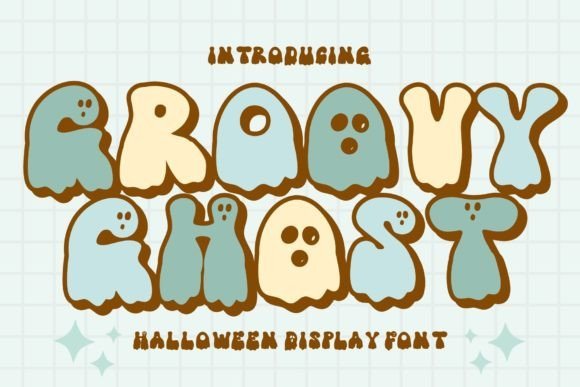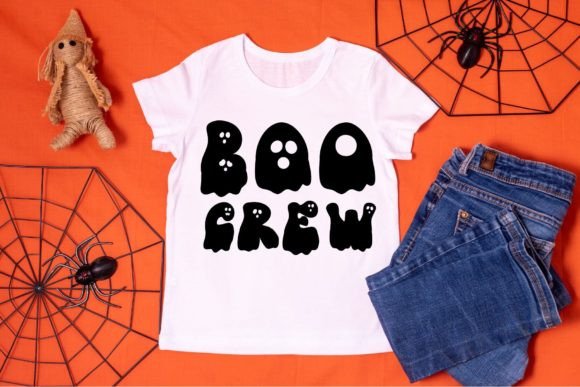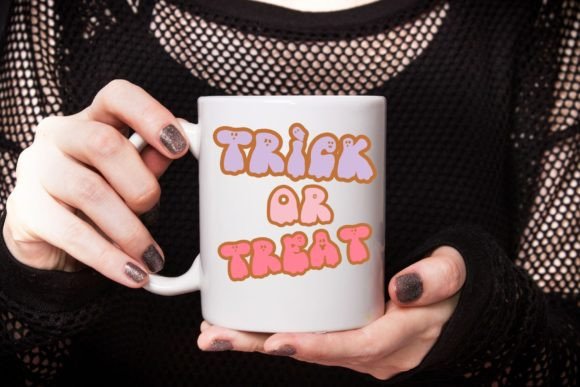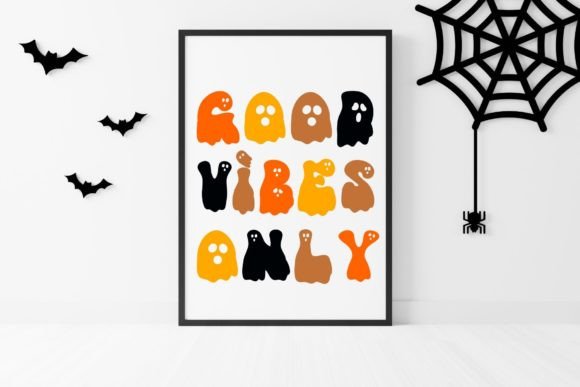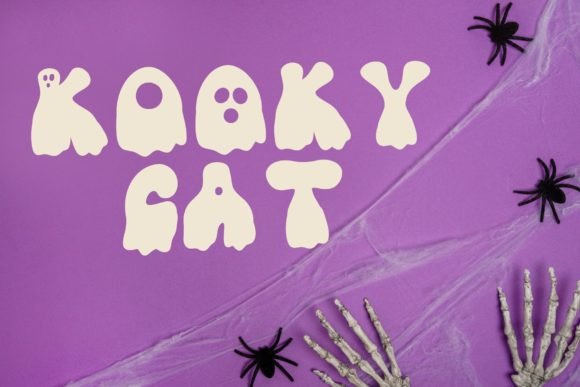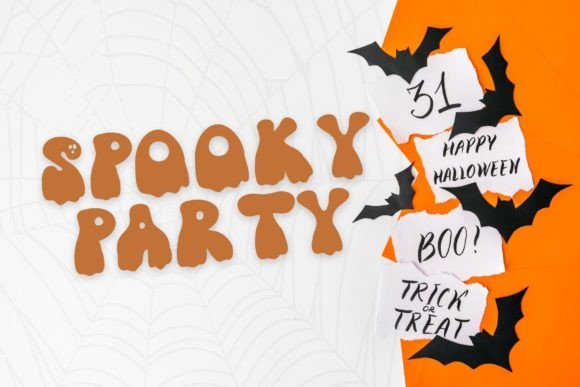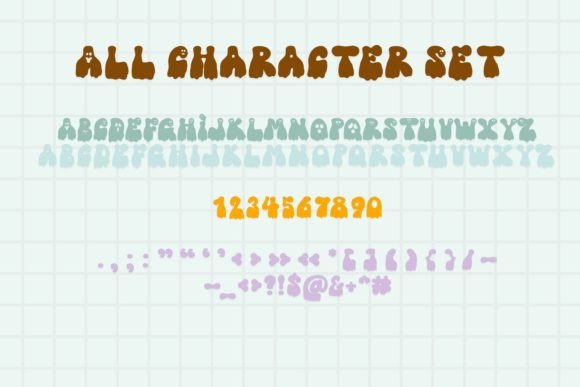
Get Ready to Haunt Your Designs with the Groovy Ghost Font
Do you remember that moment when you stumbled upon a vintage Halloween decoration in your attic, and it instantly sparked a wave of creative ideas? The spooky yet playful vibe of that decoration had you thinking of ways to incorporate it into your next design project. If you’re anything like me, you’ve probably spent hours scouring the internet for the perfect font to bring that eerie charm to life.
Enter the Groovy Ghost Font, a retro Halloween decorative font that’s sure to cast a spell on your designs. This quirky font is perfect for adding a touch of whimsy to your blog posts, logos, branding, and more. As a designer, you know the value of having the right tools at your disposal, and the Groovy Ghost Font is a valuable addition to any design arsenal.
- Unique Characteristics: This font boasts a distinctive, hand-drawn aesthetic with subtle ghosting effects, adding a touch of whimsy and personality to any design.
Groovy Ghost Font Review
I’ve had the chance to work with the Groovy Ghost Font, and I’m here to give you my honest review. Overall, I’d say it’s a great choice for the right project.
- The font’s playful, retro vibe is perfect for creating a fun and lighthearted atmosphere.
- The wide range of weights and styles makes it easy to customize and adapt to different design needs.
- The font’s legibility is surprisingly good, considering its unconventional design.
- The font’s ghostly, transparent design can make it difficult to read on certain backgrounds or with certain color combinations.
- The font may not be suitable for formal or professional designs, as its playful nature may come across as unprofessional.
- The font’s unconventional design may not appeal to everyone’s taste, so be sure to test it with your target audience.
Overall, I think the Groovy Ghost Font is a great choice for projects that require a fun and playful vibe. Just be aware of its limitations and use it thoughtfully. With the right design, it can be a real showstopper!
The “Groovy Ghost Font” is perfect for creating spooky, vintage, or retro-themed designs. Use it for:
- Halloween posters and invitations.
- Spooky social media graphics.
- Vintage-style advertisements and flyers.
Alternatives to Groovy Ghost Font
Playfair Display is an elegant, high-end font that works well for luxury brands and high-end products. It’s perfect for use in titles, headings, and other display text where a touch of sophistication is needed. Compared to Groovy Ghost Font, Playfair Display has a more refined and traditional feel, whereas Groovy Ghost Font has a more playful and whimsical vibe.
Great Vibes is a modern, script font that’s great for creating a sense of energy and movement. It’s perfect for use in titles, headings, and other display text where a touch of creativity and flair is needed. Compared to Groovy Ghost Font, Great Vibes has a more dynamic and expressive feel, whereas Groovy Ghost Font has a more subtle and understated approach.
Alex Brush is a beautiful, handwritten font that’s perfect for creating a sense of warmth and personality. It’s great for use in titles, headings, and other display text where a touch of humanity and emotion is needed. Compared to Groovy Ghost Font, Alex Brush has a more personal and intimate feel, whereas Groovy Ghost Font has a more universal and approachable vibe.